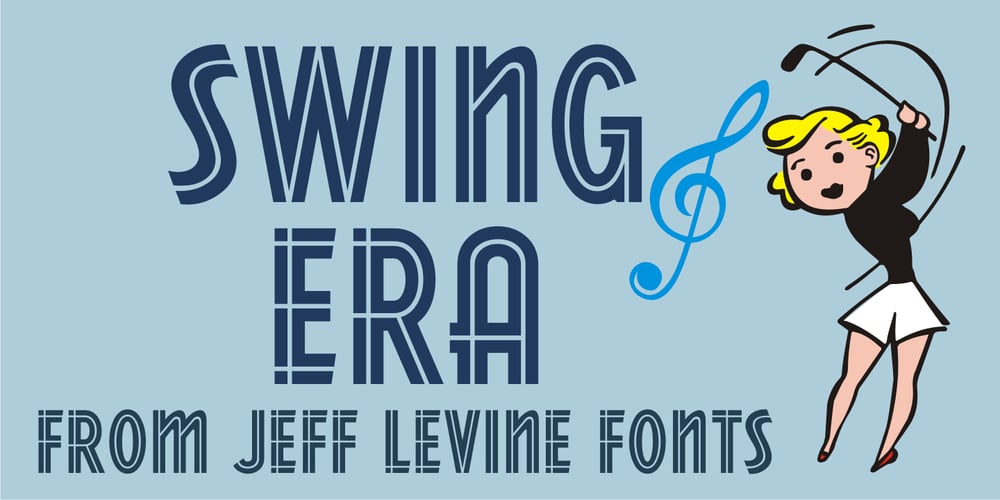
Swing Era JNL Font Family was designed by Jeff Levine and published by Jeff Levine. Swing Era JNL contains 1 styles and family package options. Hand lettered Art Deco lettering for the title on the cover of the 1930s-era song “And I Still Do” provided the inspiration for Swing Era JNL. A bold, casual and friendly typeface, it features an intersecting inline through some of the characters. One could almost picture the hottest big band of the day promoted on a lobby card with this alphabet, beckoning all to come on in and “cut a rug”.